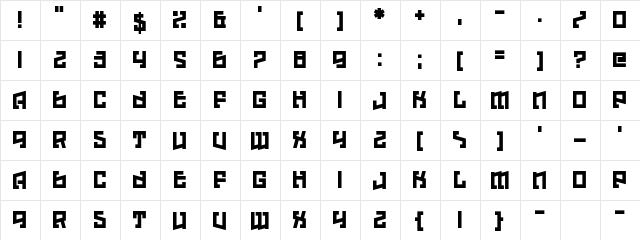
Hell Underwater Regular
| Designer | NAL |
Design Context for Hell Underwater Typeface
Hell Underwater is a composed and adaptable typeface that performs quietly and consistently across a wide range of design contexts.